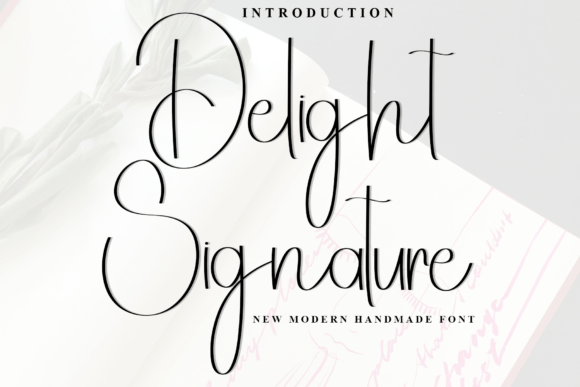
Delight Signature Font: A Festive and Merry Typeface for the Holiday Season
The holiday season is a time for joy, giving, and celebration. What better way to capture the spirit of this special time of year than with a font that’s as festive and merry as Delight Signature? This beautiful typeface is designed to add a touch of enchantment to your designs, making it perfect for greeting cards, gift tags, and holiday-themed projects.
Key Features of Delight Signature Font
- Decorative Elements: Delight Signature font is adorned with decorative elements that evoke the magic of the holiday season. From intricate swirls to whimsical flourishes, this font is sure to add a touch of wonder to your designs.
- Whimsical Flair: This font’s whimsical flair makes it perfect for creating festive and fun designs. Whether you’re creating greeting cards, gift tags, or holiday-themed projects, Delight Signature font is sure to bring a smile to people’s faces.
- PUA Encoded: Delight Signature font is PUA encoded, which means you can access all of the amazing glyphs and ligatures with ease. This makes it easy to create beautiful and intricate designs without having to worry about complicated font encoding.
Uses for Delight Signature Font
Delight Signature font is perfect for a variety of holiday-themed projects, including:
- Greeting Cards: Create beautiful and festive greeting cards for Christmas, Hanukkah, or any other holiday celebration.
- Gift Tags: Add a personal touch to your gifts with custom gift tags featuring Delight Signature font.
- Holiday-Themed Projects: Use Delight Signature font to create festive and fun designs for holiday-themed projects, such as flyers, brochures, or social media graphics.
Benefits of Using Delight Signature Font
There are many benefits to using Delight Signature font in your holiday-themed designs, including:
- Unique and Festive: Delight Signature font is a unique and festive typeface that’s sure to stand out in a crowd.
- Easy to Use: This font is PUA encoded, making it easy to access all of the amazing glyphs and ligatures.
- Cheerful and Nostalgic: Delight Signature font brings a cheerful and nostalgic ambiance to your words, making it perfect for holiday-themed designs.
Tips for Using Delight Signature Font
Here are a few tips for using Delight Signature font in your designs:
- Experiment with Different Sizes: Delight Signature font looks great in a variety of sizes, from small and delicate to large and bold.
- Pair with Other Fonts: Try pairing Delight Signature font with other fonts to create a unique and interesting design.
- Use Decorative Elements: Take advantage of the decorative elements in Delight Signature font to add a touch of whimsy to your designs.
Where to Use Delight Signature Font
Delight Signature font can be used in a variety of places, including:
- Digital Designs: Use Delight Signature font in digital designs, such as social media graphics, flyers, and brochures.
- Print Designs: This font is also perfect for print designs, such as greeting cards, gift tags, and holiday-themed stationery.
- Websites: Use Delight Signature font on your website to add a touch of festive cheer to your holiday-themed pages.
Delight Signature font is a beautiful and festive typeface that’s perfect for capturing the spirit of the holiday season. With its decorative elements, whimsical flair, and PUA encoding, this font is sure to add a touch of enchantment to your designs. Whether you’re creating greeting cards, gift tags, or holiday-themed projects, Delight Signature font is the perfect choice. So why wait? Download Delight Signature font today and let your typography shine with the magic of Beautiful Font!